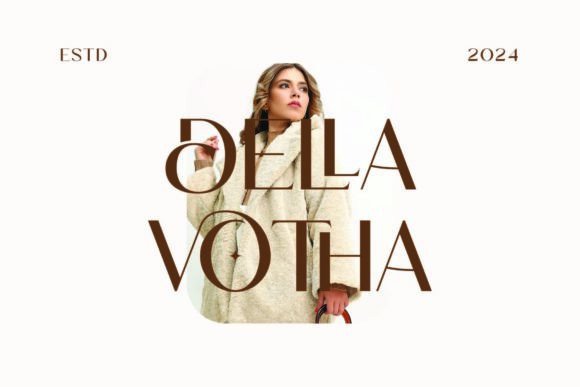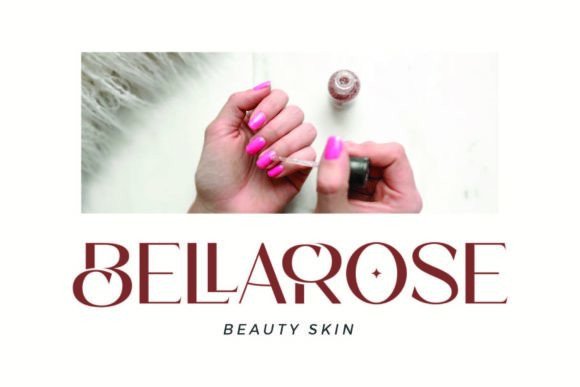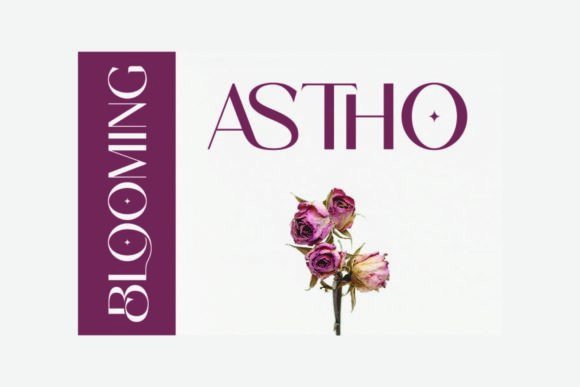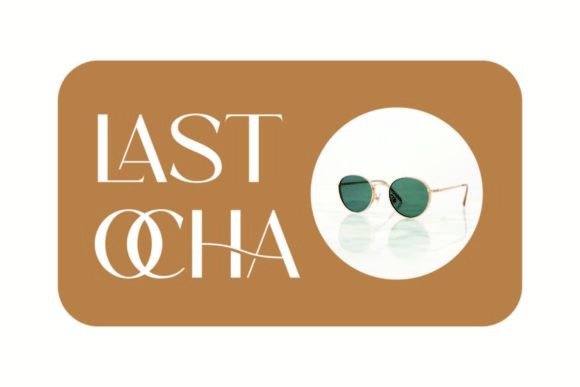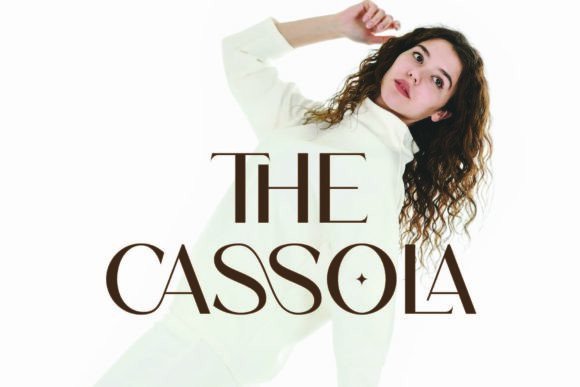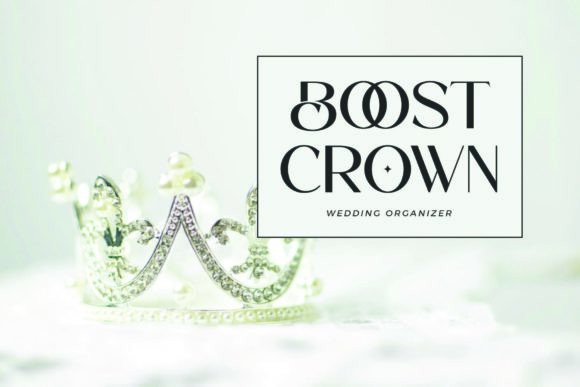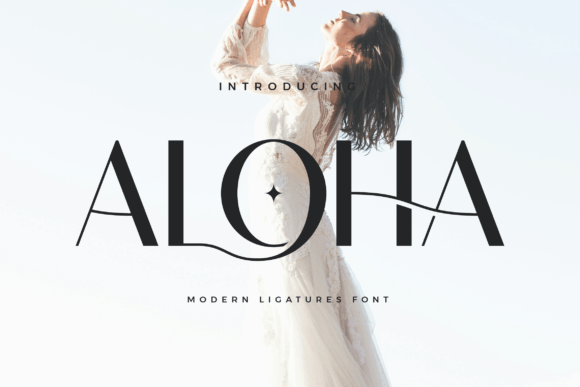
Aloha Font: Elevate Your Designs with Modern Elegance
In the world of typography, fonts play a crucial role in conveying the tone and aesthetic of a design. For creatives seeking a modern and stylish sans-serif font that can elevate their projects, Aloha is an excellent choice. This contemporary font combines clean lines with subtle curves, making it perfect for editorial designs, luxury branding, and web typography.
The Characteristics of Aloha Font
Aloha is a sans-serif font that boasts a sophisticated presence, making it ideal for designs that require a touch of elegance. Its clean lines and subtle curves create a harmonious balance that is both visually appealing and easy to read. The font’s modern aesthetic is characterized by:
- Clean Lines: Aloha’s lines are precise and unadorned, giving the font a sleek and contemporary look.
- Subtle Curves: The font’s curves add a touch of warmth and sophistication, making it perfect for designs that require a bit of elegance.
- Legibility: Aloha’s clear and concise letterforms ensure that it is easy to read, making it suitable for a wide range of applications.
Perfect for Editorial Designs
Aloha font is an excellent choice for editorial designs, such as magazines, newspapers, and books. Its clean lines and subtle curves create a sophisticated look that is perfect for:
- Headlines: Aloha’s bold and modern aesthetic makes it perfect for headlines that require a touch of elegance.
- Body Text: The font’s legibility and readability make it suitable for body text, ensuring that readers can easily follow the content.
Luxury Branding and Web Typography
Aloha font is also perfect for luxury branding and web typography. Its modern aesthetic and sophisticated presence make it ideal for:
- Logo Design: Aloha’s clean lines and subtle curves create a logo that is both modern and elegant.
- Web Design: The font’s legibility and readability make it perfect for web typography, ensuring that users can easily navigate and engage with the content.
Why Choose Aloha Font?
There are many fonts available, but Aloha stands out for its unique combination of modern elegance and sophistication. Here are some reasons why you should choose Aloha for your creative projects:
- Modern Aesthetic: Aloha’s clean lines and subtle curves create a modern look that is perfect for contemporary designs.
- Versatility: The font is suitable for a wide range of applications, from editorial designs to luxury branding and web typography.
- Elegance: Aloha’s sophisticated presence adds a touch of elegance to every composition, making it perfect for designs that require a bit of luxury.
In conclusion, Aloha font is a modern and stylish sans-serif font that is perfect for creatives seeking a touch of elegance in their designs. Its clean lines, subtle curves, and sophisticated presence make it ideal for editorial designs, luxury branding, and web typography. With its versatility and modern aesthetic, Aloha is an excellent choice for any creative project. Choose Aloha font today and elevate your designs with modern elegance.